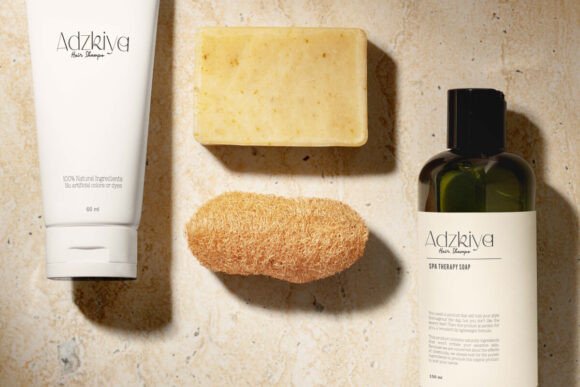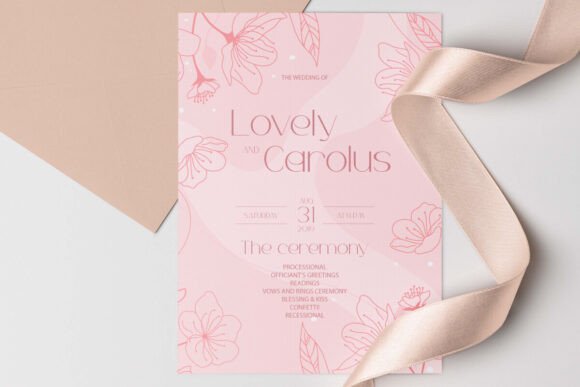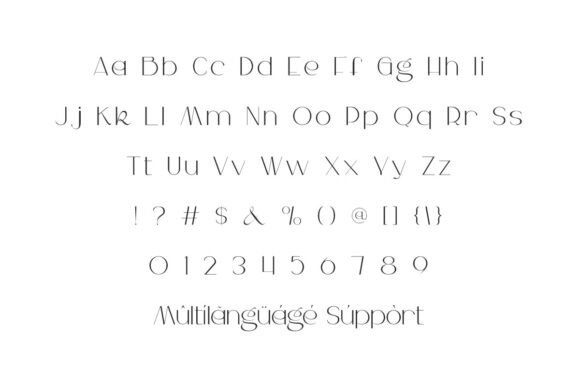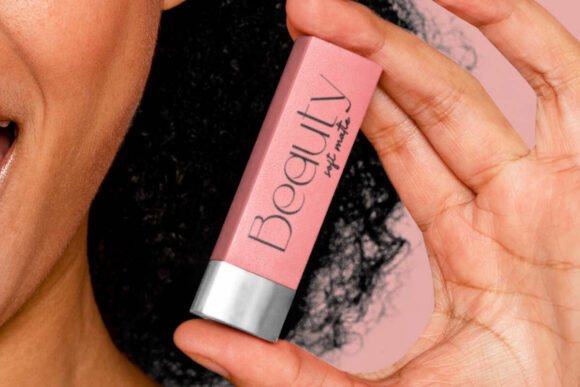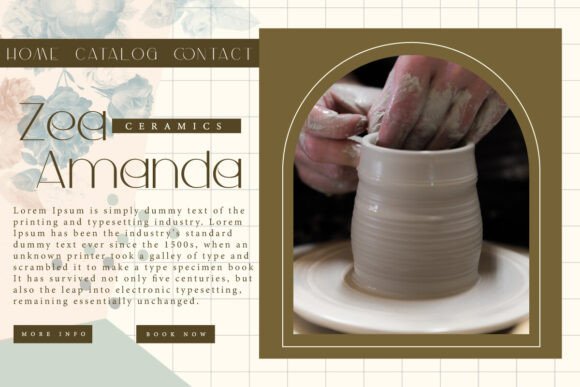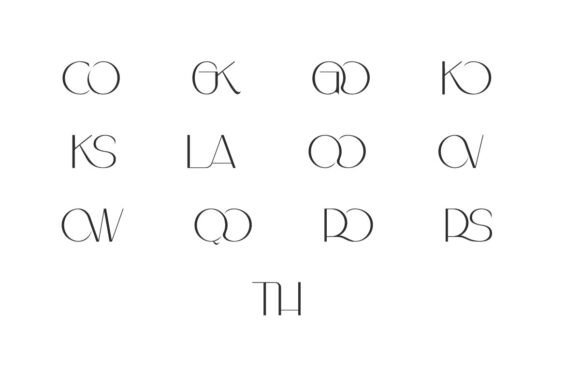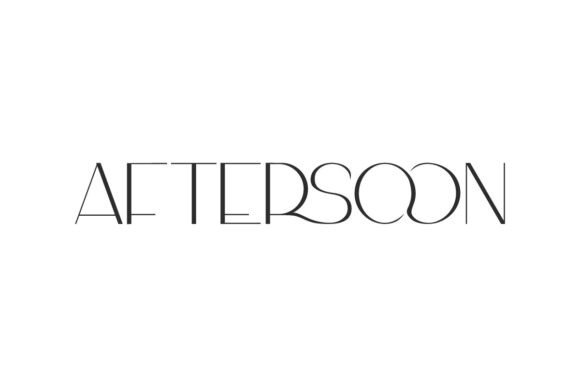
Aftersoon Font: Elevate Your Designs with Elegance and Sophistication
In the world of typography, fonts play a crucial role in conveying the tone and personality of a brand, product, or editorial. For designers and crafters seeking to add a touch of class and sophistication to their projects, the Aftersoon font is an excellent choice. This sleek, elegant, and minimalist font boasts a contemporary flair, making it perfect for a wide range of applications, from branding and fashion editorials to invitations and luxury product designs.
The Essence of Aftersoon Font
Aftersoon is a thoughtfully designed typeface that exudes refinement and poise. Its sophisticated letterforms and modern design elements make it an ideal choice for designers who want to create a lasting impression. The font’s clean lines, subtle curves, and balanced proportions create a harmonious visual experience, perfect for projects that demand a high level of elegance and sophistication.
Key Features of Aftersoon Font
- Sleek and Elegant Design: Aftersoon’s slender letterforms and refined lines create a sleek and elegant appearance, perfect for luxury brands, fashion editorials, and high-end product designs.
- Minimalist Aesthetic: The font’s minimalist design ensures that it remains versatile and adaptable, allowing it to seamlessly integrate with various design styles and concepts.
- Contemporary Flair: Aftersoon’s modern design elements and subtle curves give it a contemporary edge, making it perfect for designers who want to create fresh and modern designs.
- Sophisticated Letterforms: The font’s letterforms are carefully crafted to convey a sense of sophistication and refinement, making it ideal for projects that demand a high level of elegance.
Applications of Aftersoon Font
Aftersoon’s versatility and elegance make it suitable for a wide range of applications, including:
- Branding: Use Aftersoon to create a lasting impression for your brand, adding a touch of sophistication and elegance to your logo, business cards, and marketing materials.
- Fashion Editorials: Aftersoon’s sleek and modern design makes it perfect for fashion editorials, allowing you to create visually stunning and high-end content.
- Invitations: Add a touch of luxury to your invitations, whether it’s for a wedding, gala, or corporate event, with Aftersoon’s elegant and refined design.
- Luxury Product Designs: Use Aftersoon to create visually stunning designs for luxury products, such as high-end fashion accessories, jewelry, or watches.
Why Choose Aftersoon Font?
With so many fonts available, why choose Aftersoon? Here are a few compelling reasons:
- Unique and Distinctive: Aftersoon’s sleek and modern design sets it apart from other fonts, ensuring that your designs stand out from the crowd.
- Highly Versatile: The font’s minimalist aesthetic and elegant design make it adaptable to various design styles and concepts.
- Easy to Read: Aftersoon’s clear and balanced letterforms ensure that your text is easy to read, even at small font sizes.
In conclusion, Aftersoon font is an excellent choice for designers and crafters seeking to add a touch of elegance and sophistication to their projects. Its sleek and modern design, sophisticated letterforms, and versatile aesthetic make it perfect for a wide range of applications. Whether you’re working on a branding project, fashion editorial, invitation, or luxury product design, Aftersoon is sure to elevate your designs and leave a lasting impression.